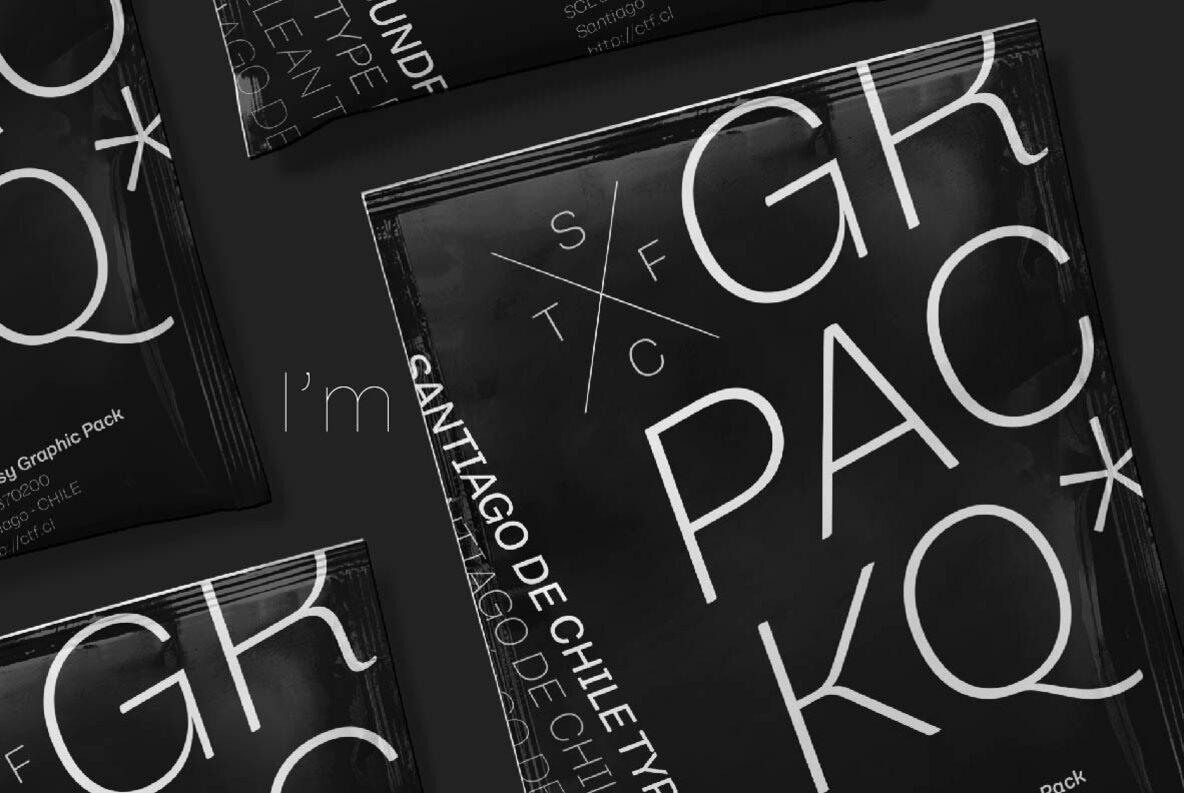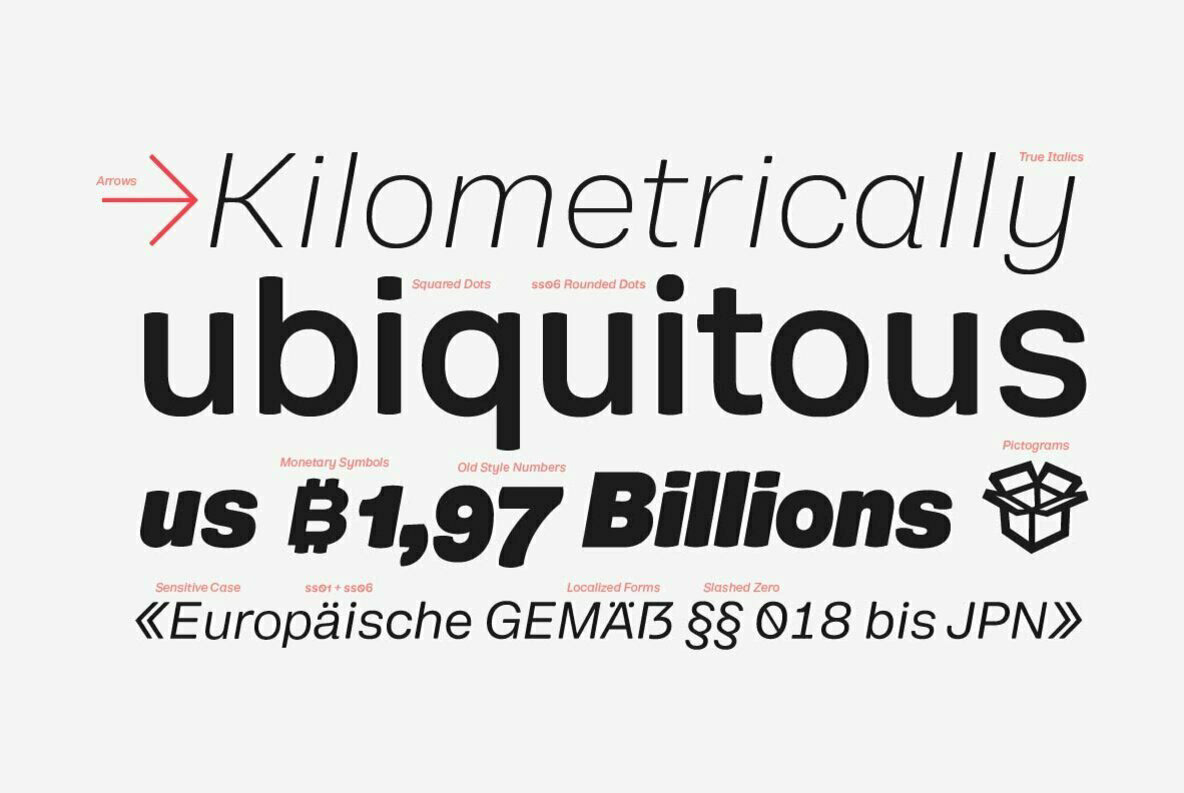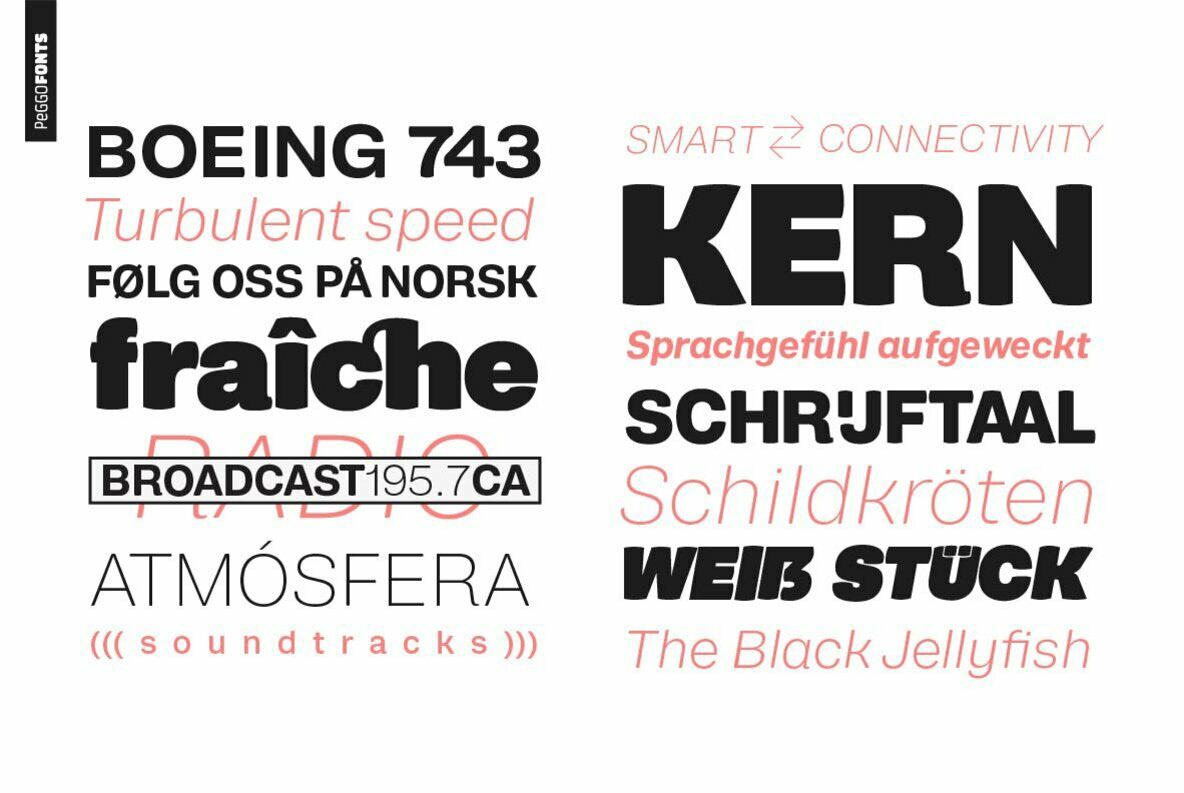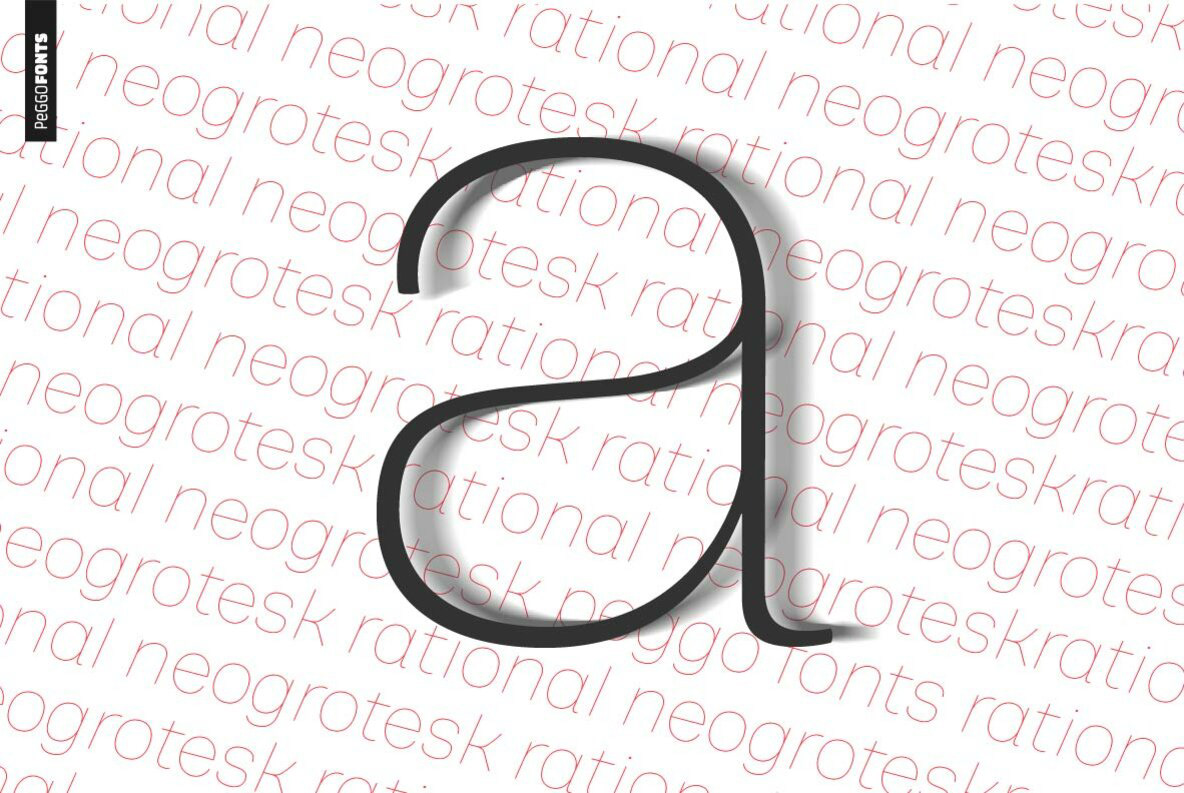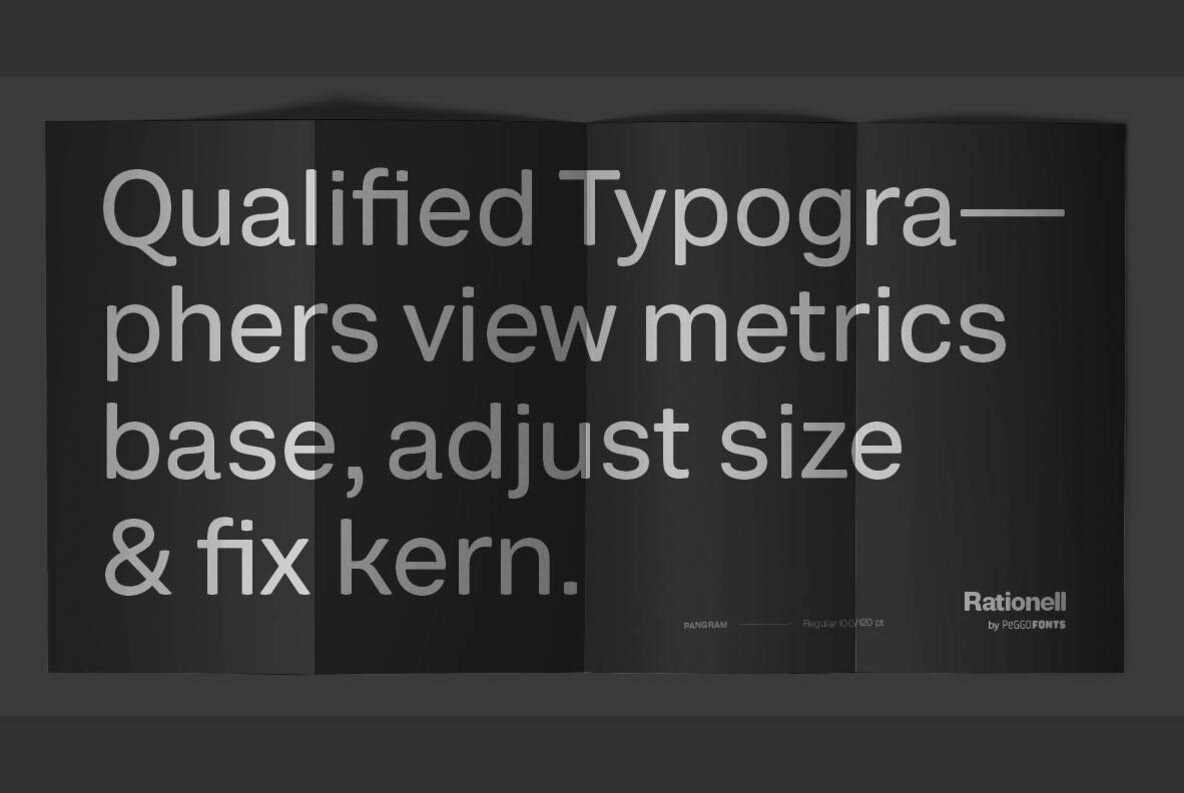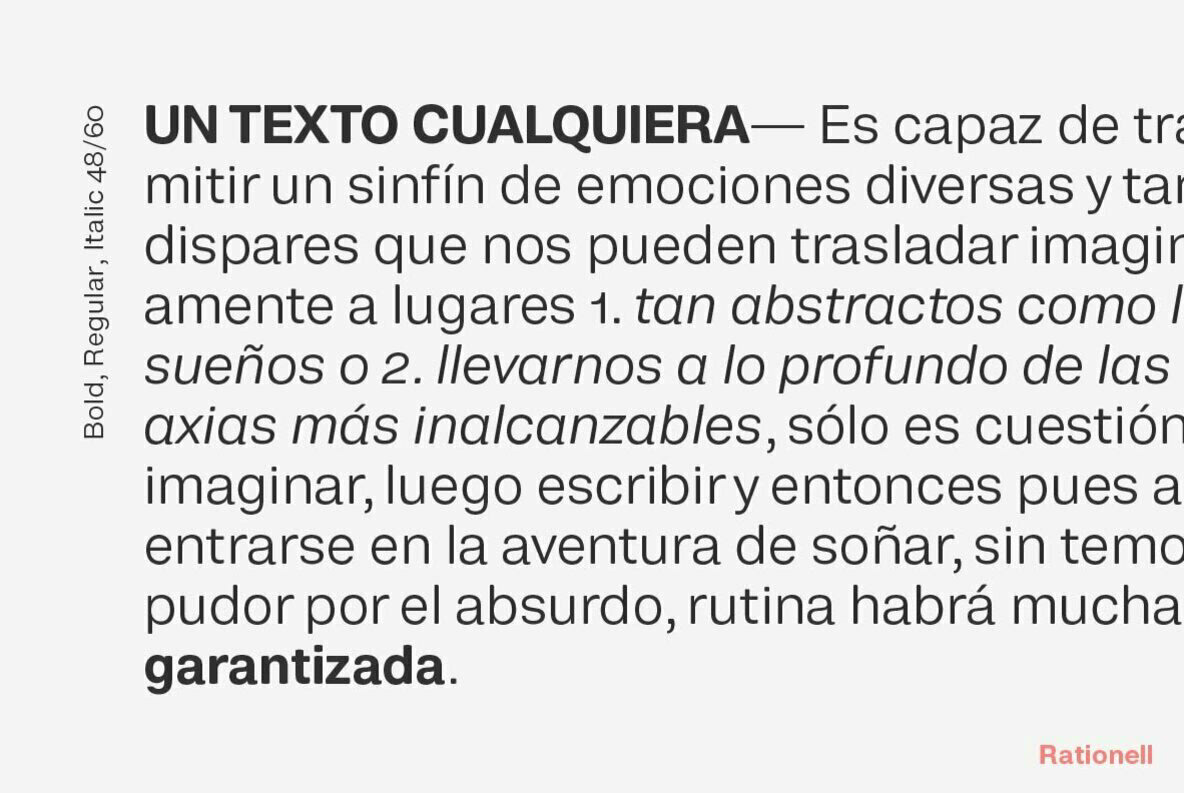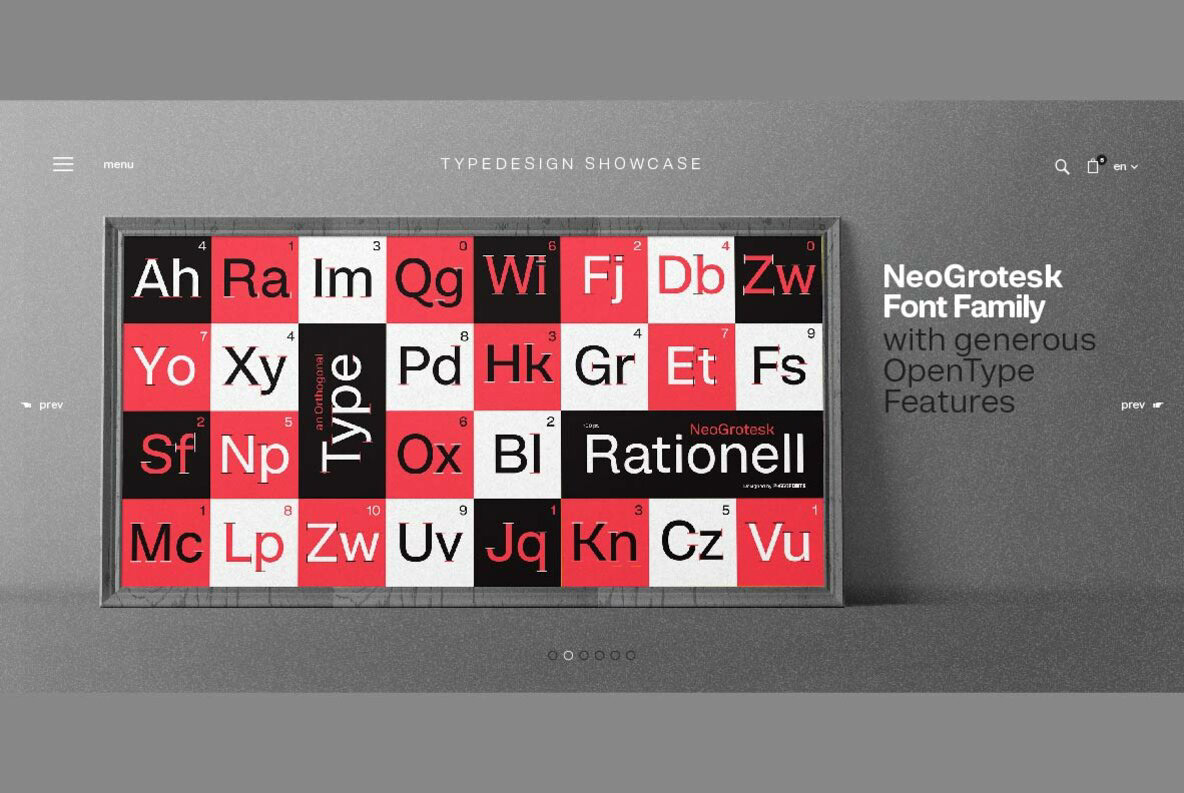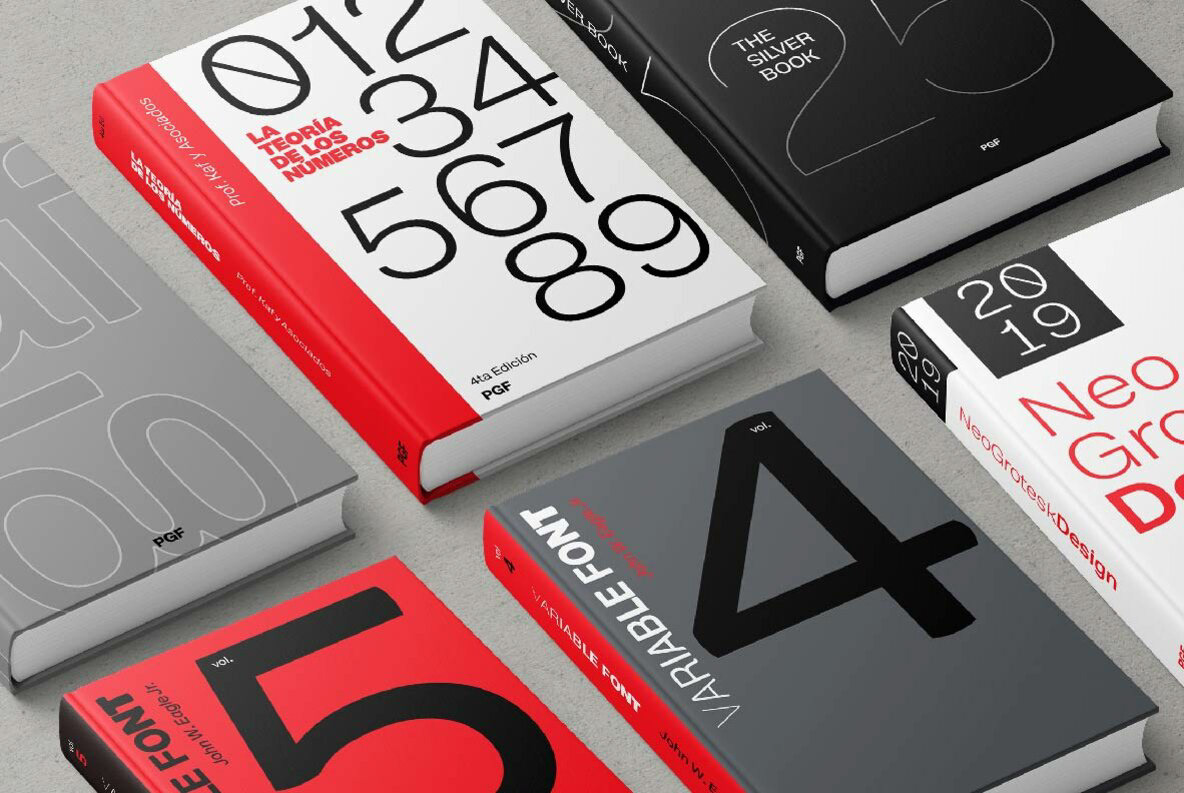
Rationell is a functional multipurpose corporate typeface, based on classic 1950's swiss rationalism, subtle tuned on a XIX century didonesque modernist structure, a contemporary interpretation with the eyes of the Latin idiosyncrasy.
based on classic 1950's swiss rationalism, subtle tuned on a XIX century didonesque modernist structure, a contemporary interpretation with the eyes of the Latin idiosyncrasy.